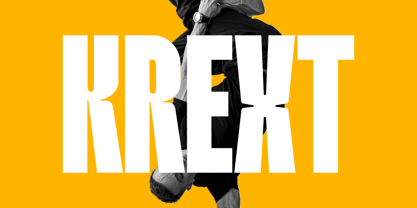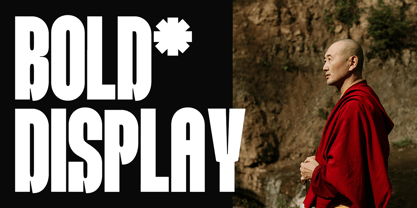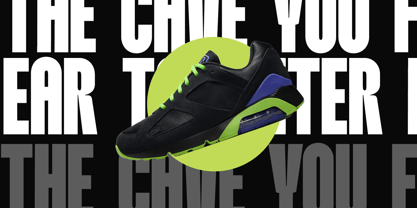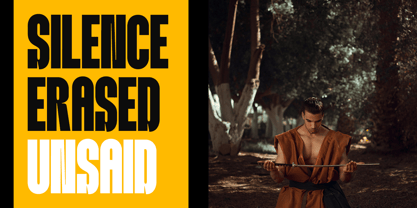
Krext Display
by FoxType
The Krext Display Font Family was designed by Evin Tony and published by FoxType. Krext Display contains 2 styles and family package options. More about this family
Krext is a modern display typeface designed for bold visual impact. Featuring sharp, clean edges and a contemporary aesthetic, Krext is built to elevate your designs across a wide range of applications.
With 2 versatile weights – Bold and Extra Bold – Krext adapts seamlessly to your creative needs, from subtle branding to commanding headlines.
Packed with 200+ meticulously crafted glyphs, this font is perfect for:
* Branding
* Posters & Flyers
* Book & Magazine Covers
* Headlines & Titles
* Billboards & Signage
* Digital Media & Web Design
Krext offers precision and power in every character, making it an ideal choice for designers who want their typography to stand out.
Modern. Bold. Unmistakable. That’s Krext.